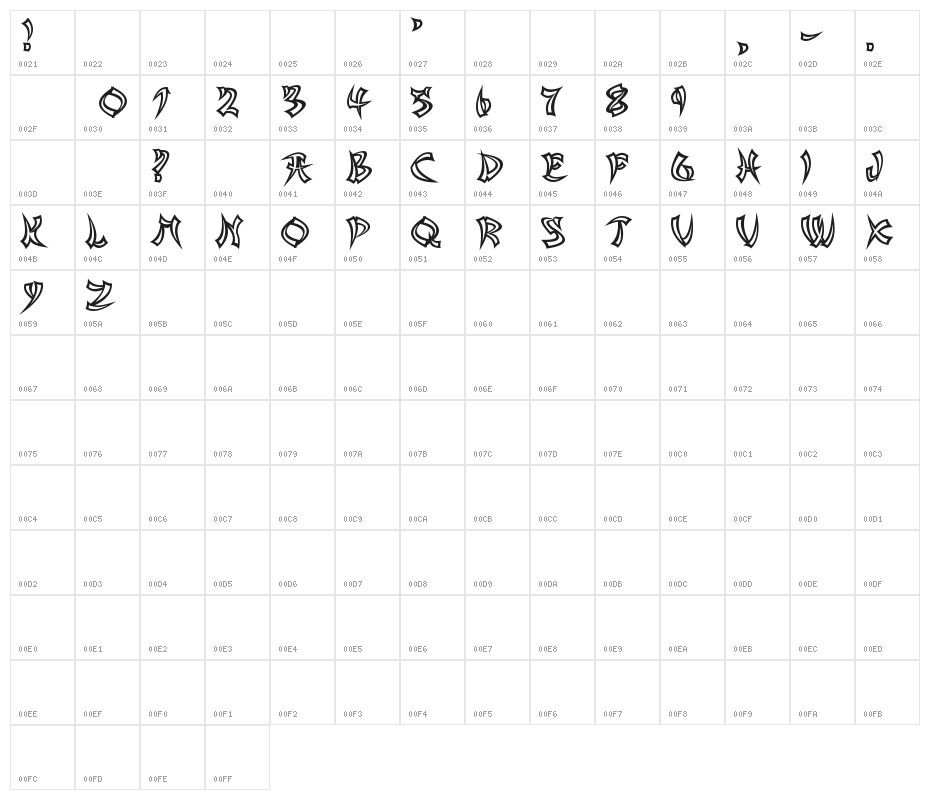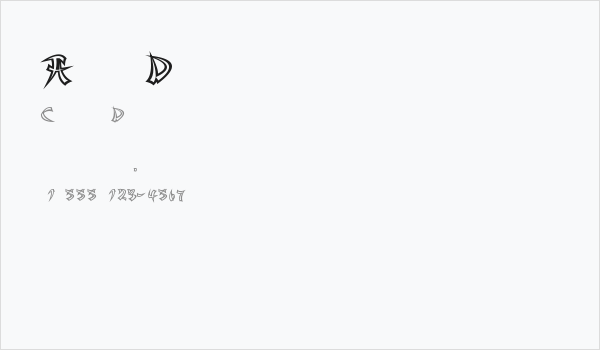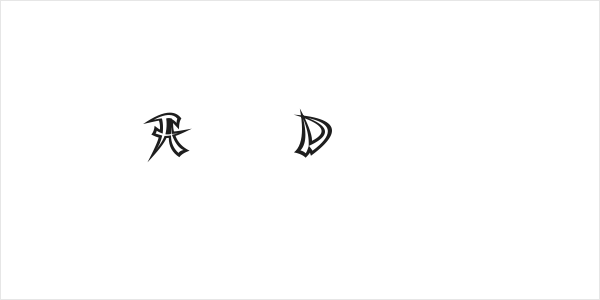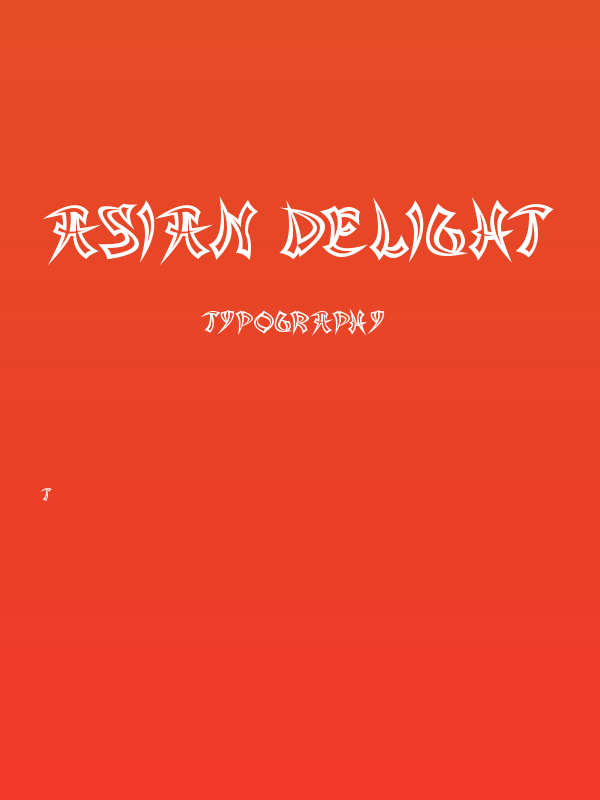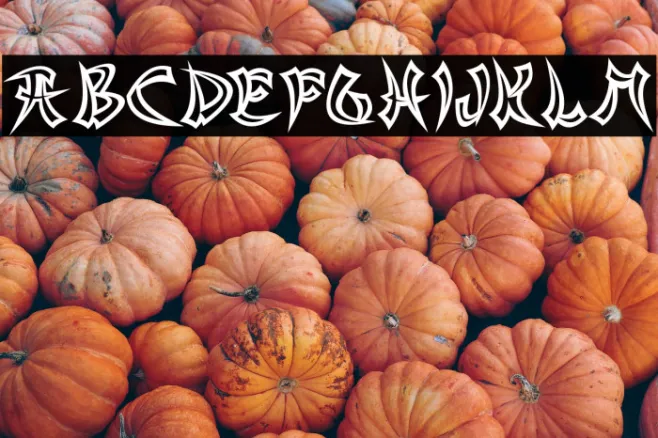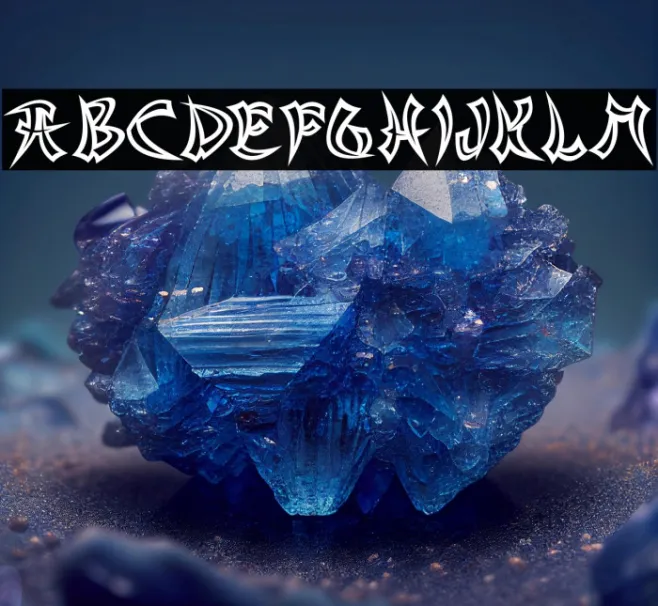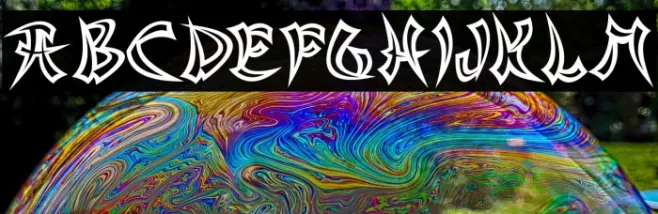
Asian Delight Font
Asian Delight Description
This font features a bold and dynamic style with sharp, angular edges and a distinctively artistic flair. The characters are designed with a high level of detail, incorporating intricate curves and pointed tips that give it a unique, edgy appearance. The uppercase letters are particularly striking, with a sense of movement and energy that suggests a modern, urban aesthetic. The numbers and special characters maintain this theme, offering a cohesive look across all elements. The font's overall design is both decorative and impactful, making it suitable for projects that require a strong visual statement.